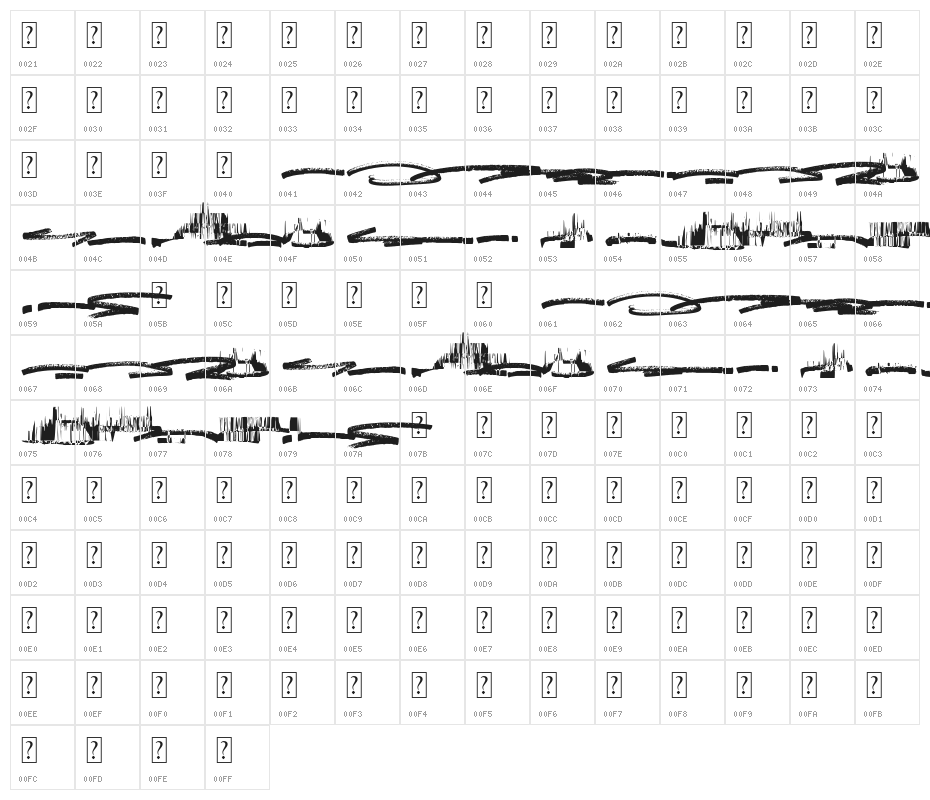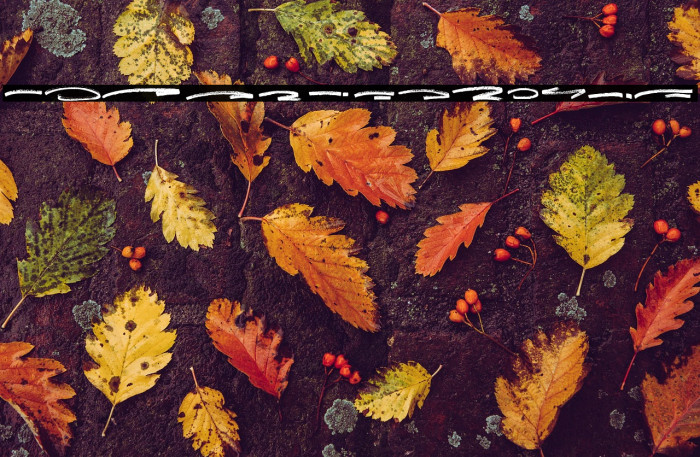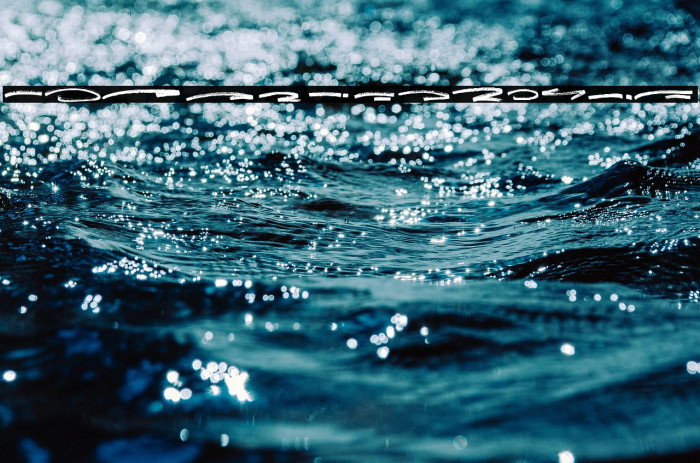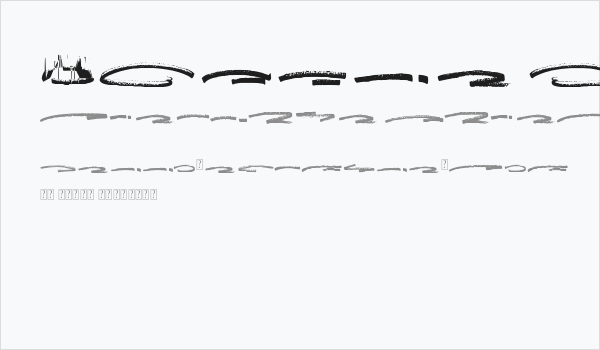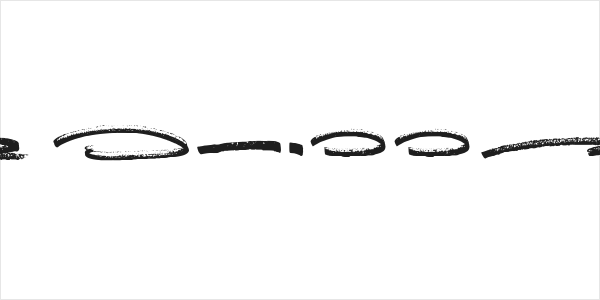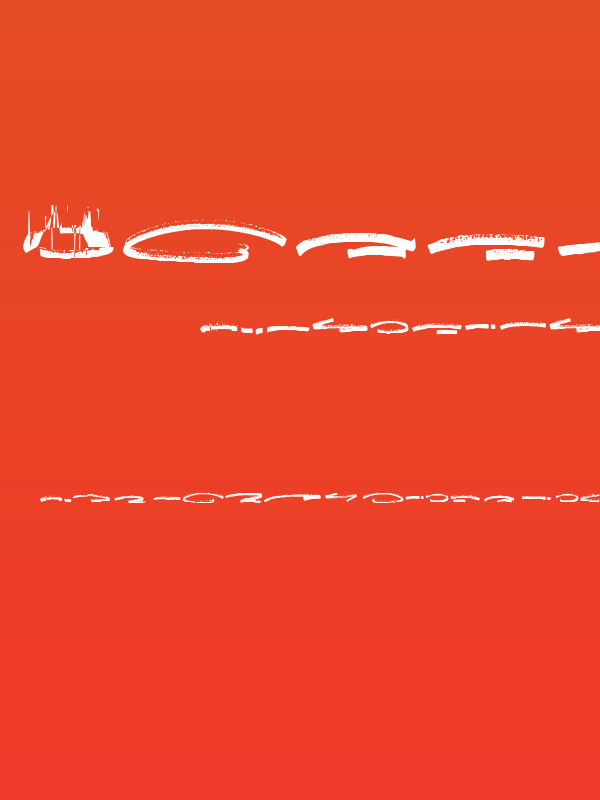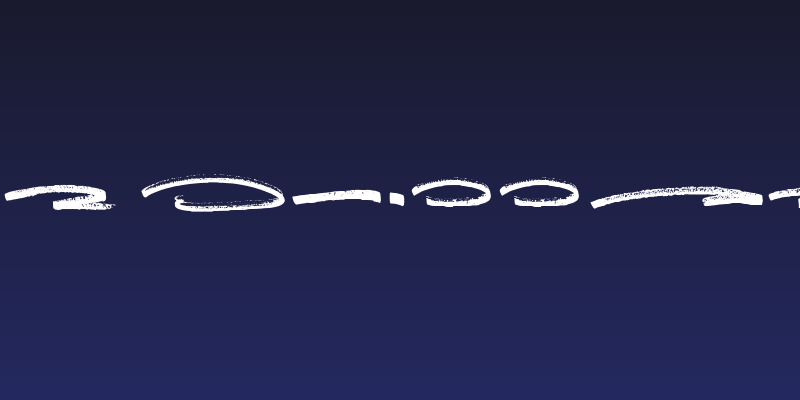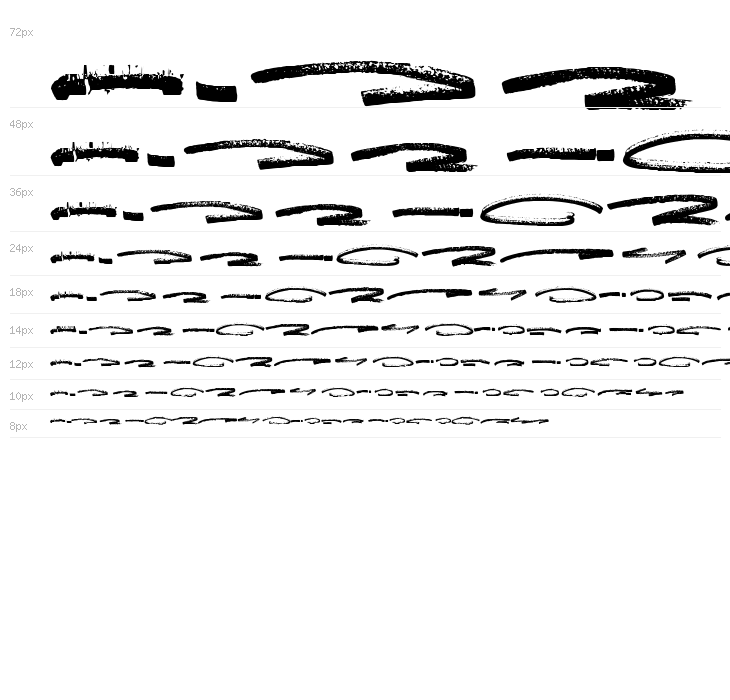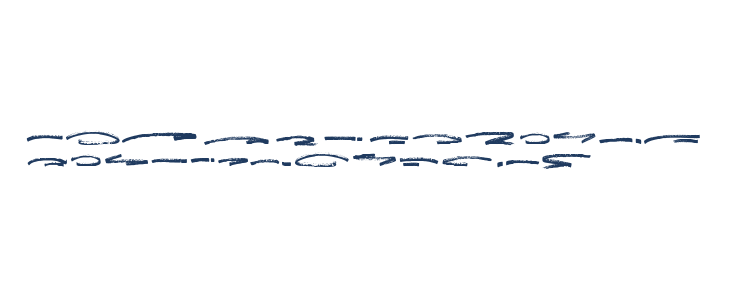
Jungle Bloods Swash Font
Jungle Bloods Swash Description
This font features an artistic and decorative style, characterized by its fluid and dynamic strokes. Each character appears to be hand-drawn, with a unique flair that suggests movement and creativity. The design incorporates a sense of spontaneity, with varying line thicknesses and a slightly irregular baseline that adds to its charm. The overall appearance is reminiscent of brush or calligraphic writing, making it ideal for projects that require a personal and artistic touch. The font's distinctive style is well-suited for creative projects, such as invitations, posters, or branding that seeks to convey a sense of individuality and artistic flair.
| Overall Style | Artistic, Decorative |
| Use Case | Headlines, Artistic projects, Branding |
| Proposed Projects | Ideal for invitations, posters, artistic branding, and creative projects. |